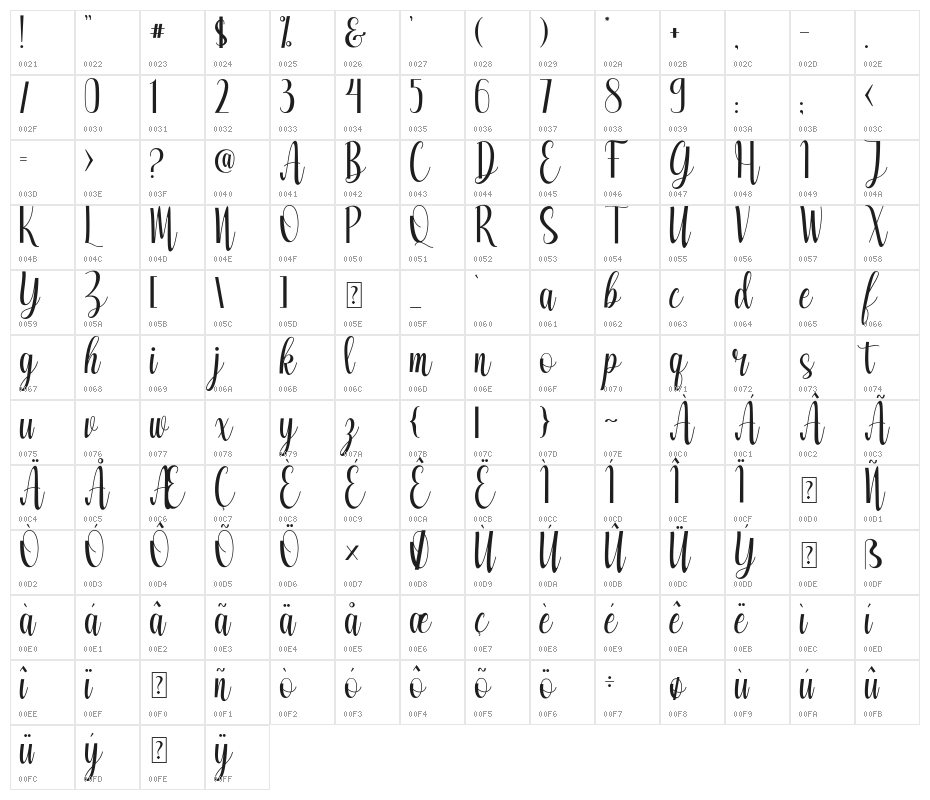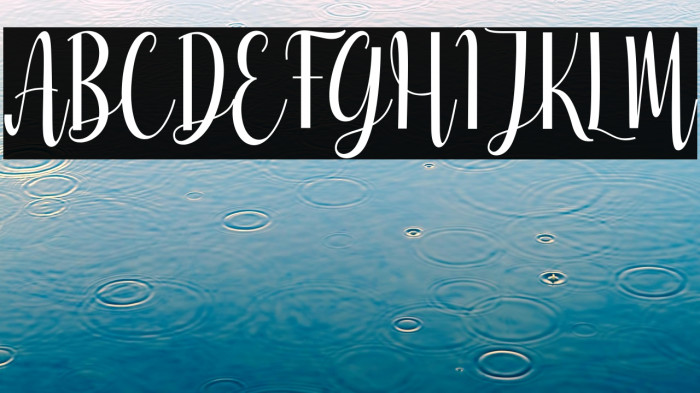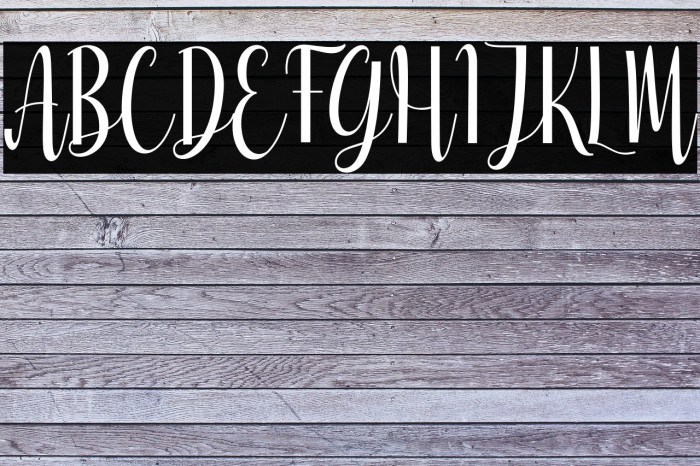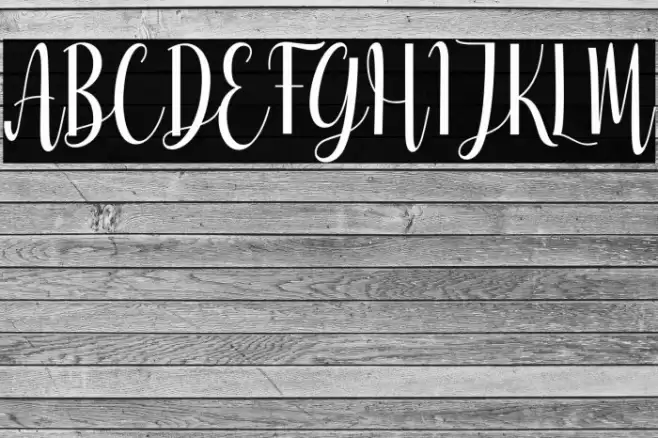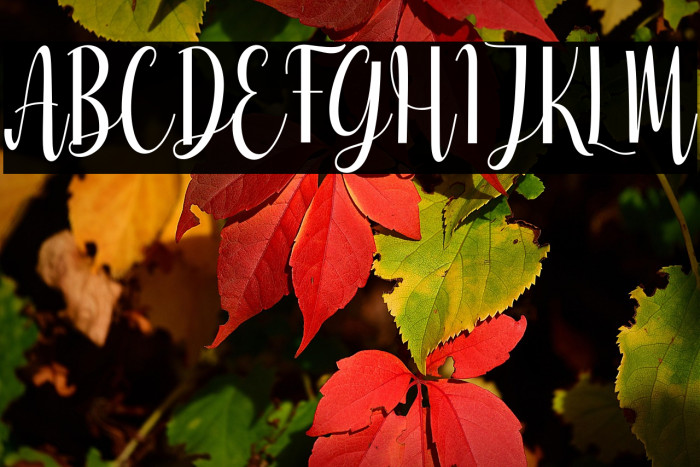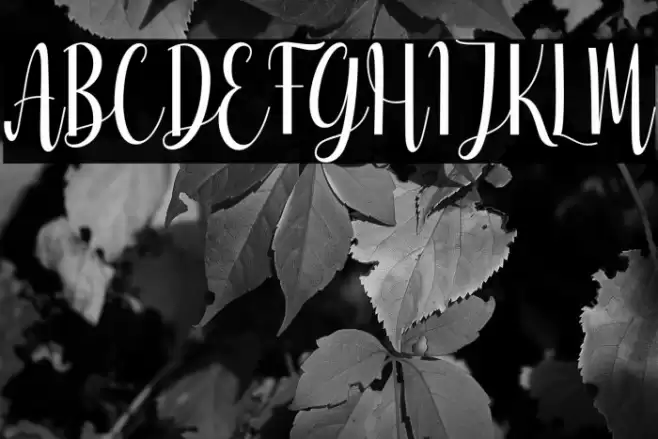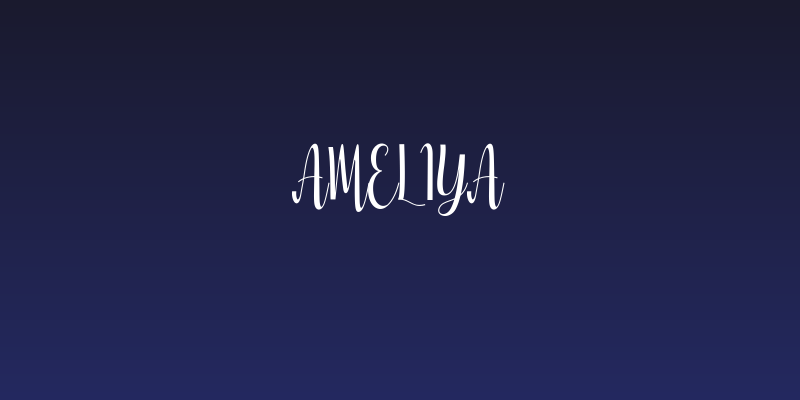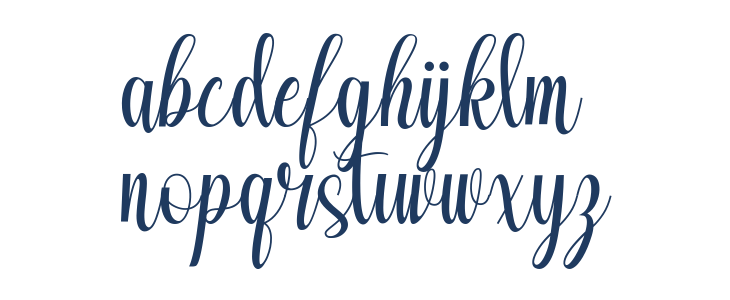
Ameliya Font
Ameliya Description
This font exudes elegance and sophistication with its flowing, cursive style. The uppercase letters are tall and slender, featuring graceful curves and loops that add a touch of whimsy. The lowercase letters maintain a consistent flow, with some characters extending below the baseline, enhancing the font's fluidity. The numerals are bold and distinct, providing a strong contrast to the delicate letterforms. Special characters are creatively designed, maintaining the overall aesthetic while ensuring readability. This font is ideal for projects that require a touch of elegance and creativity.
| Use Case | Logos, Invitations, Artistic Posters |
| Proposed Projects | Ideal for wedding invitations, elegant branding, and artistic posters. |